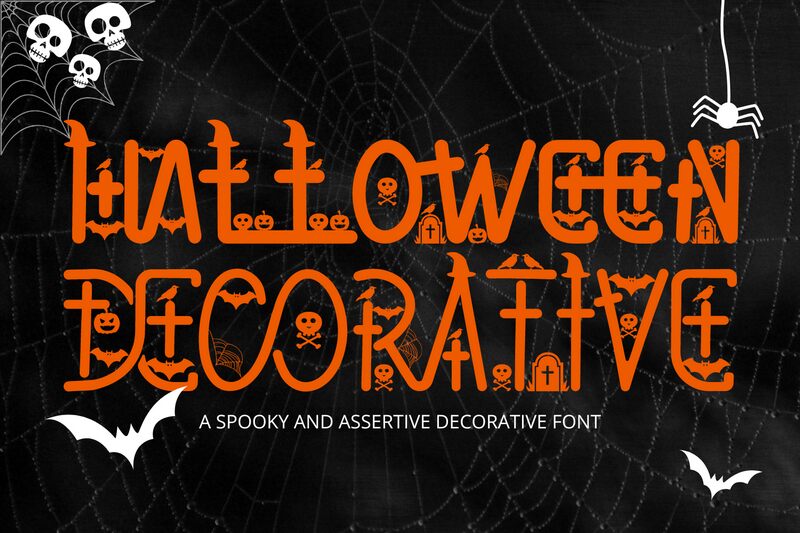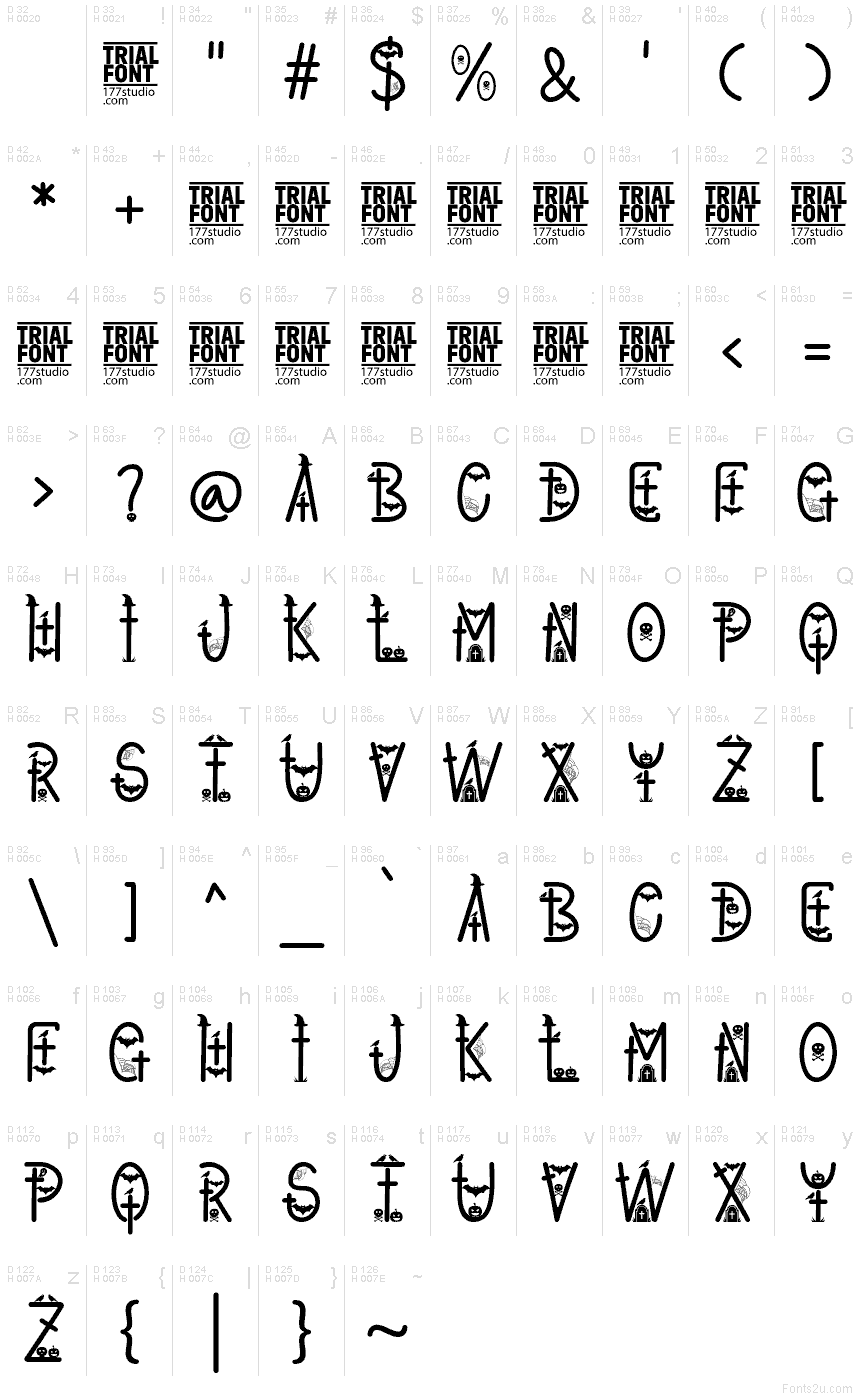
Halloween Decorative Demo Light
Halloween Decorative Light font by 177Studio is a free halloween decorative display font. Part of the Halloween Decorative family, it stretches tall and spiky, with twiggy stems, bony curls, and tiny skull and web motifs tucked into the shapes. The lighter weight keeps those spooky details crisp instead of muddy, giving headlines a carved-wood, candlelit vibe without turning into a smear.
Using Halloween Decorative Light, you can headline party invites, haunted house posters, trick-or-treat bag labels, social promos, yard-sign graphics, and YouTube thumbnails that need instant October energy. Set it big and give it a touch of extra tracking for clarity, then pair with a clean sans for the small print to keep the chills readable.